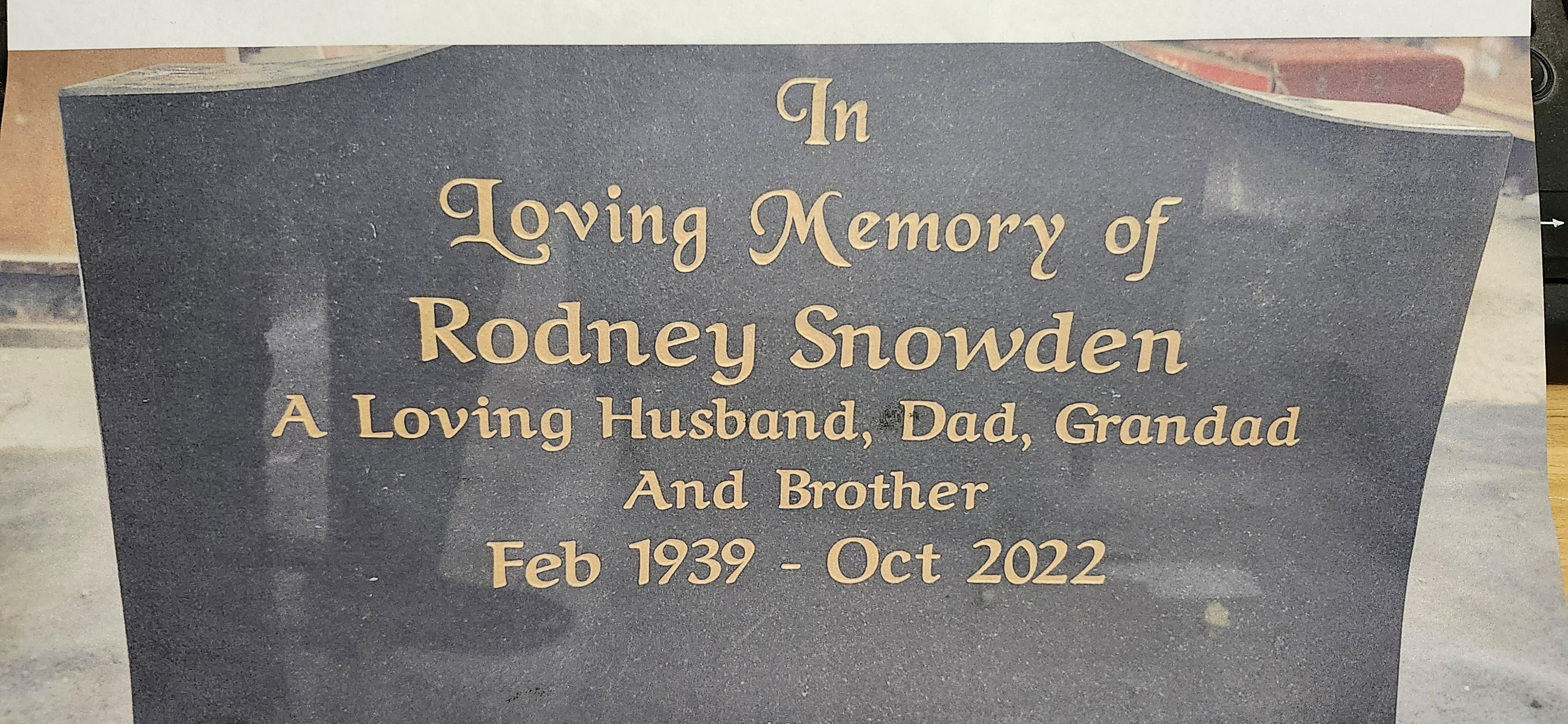
Help with main font please (not the heading)
Hi can anybody please identify the font below? I know the heading is Tailends but the rest of the lettering is different, it seems to also have chancery elements but I can’t find the actual font anywhere, please help!
I am still looking for this font but I can’t find it anywhere, I find some that have similar styles but looking for similar or related fonts draws a blank
This is the latin characters in the Google font named Aref Ruqaa Bold. Additionally, the font you named as Tailends is based on a free font named Black Chancery, of which there are several free versions available online with some differences.